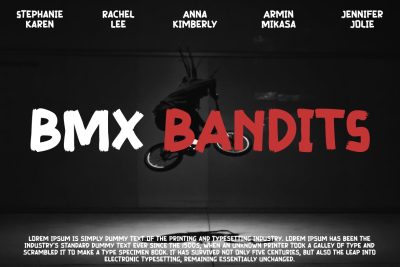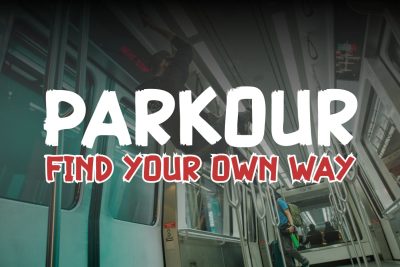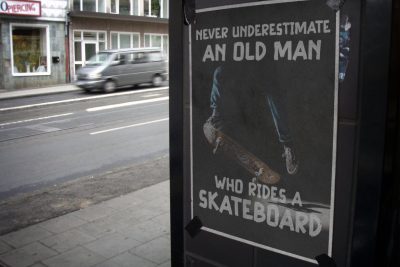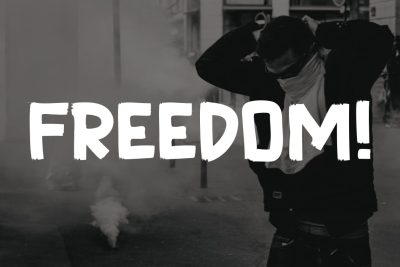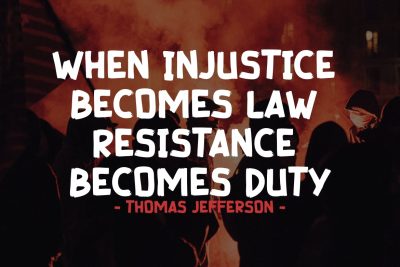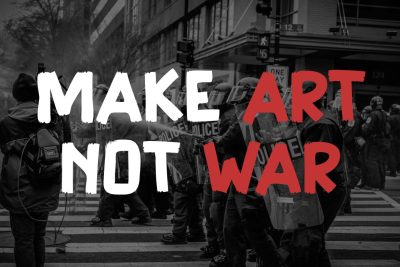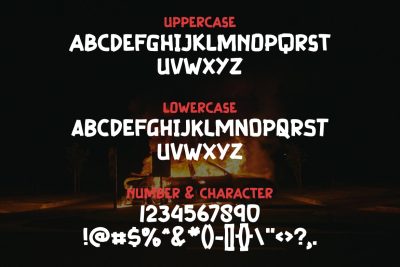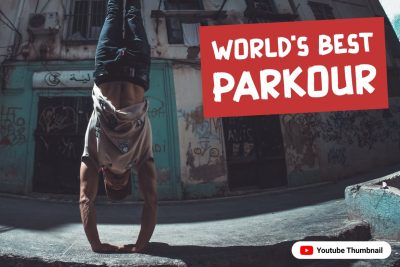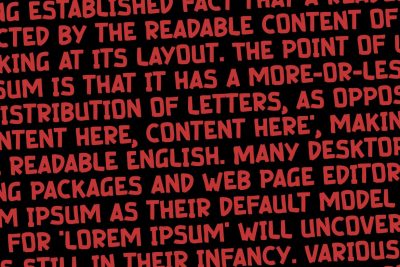
Paint on the Wall – Rough brush font
Paint on the Wall
Graffiti Font Paint on the Wall is a bold typeface inspired by the raw energy of street art. With its rough brush strokes and rugged edges, it closely mimics the look of graffiti on urban walls. Each letterโ€™s thick, distressed lines give it a unique, hand-painted feel, instantly catching the viewerโ€™s eye. Additionally, the fontโ€™s irregular form adds a burst of energy to designs, making it ideal for creating a strong visual impact. Its large shapes and striking style make Paint on the Wall perfect for titles, posters, and album covers. Furthermore, its adaptable design works well with various color schemes and backgrounds, allowing designers to craft visuals with a distinctly urban and edgy vibe. In short, this font doesnโ€™t just stand out; it demands attention and adds a layer of authenticity to any project.
Graffiti Font Paint on the Wall Best Use Cases and Target Audience
Paint on the Wall is a fantastic choice for artists, designers, and brands targeting a youthful, trend-conscious audience. Specifically, it works well for urban branding, alternative art scenes, and projects rooted in street culture. For instance, brands in music, fashion, and entertainment can use this font to connect with audiences who value individuality. Moreover, designers working with hip-hop, punk, or alternative music genres will find it perfect for posters, album art, and merchandise. Itโ€™s also ideal for event promotions, skateboard graphics, and clothing brands with a strong urban appeal. Additionally, social media influencers focused on streetwear, travel, or the arts can leverage this font to add a gritty, authentic touch to their visuals.
Overall, this typeface communicates energy, defiance, and individuality, making it perfect for projects that need to stand out. Whether used in branding, creative designs, or personal projects, Paint on the Wall captures the raw spirit of street art, bringing a bold and genuine feel to every piece.
Like a rough pain, being drag to send the message.ย Paint on the Wallย bring the edgy and harsh word into reality.